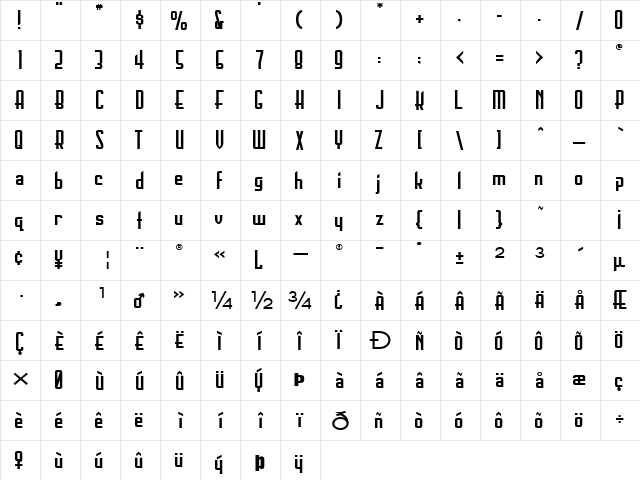
BoastingTextLight116 Regular
Design Context for BoastingTextLight116 Typeface
BoastingTextLight116 takes a measured approach to typography — its balanced proportions and neutral character make it a reliable workhorse for both digital and print work. Its slender proportions lend an understated elegance to any composition.